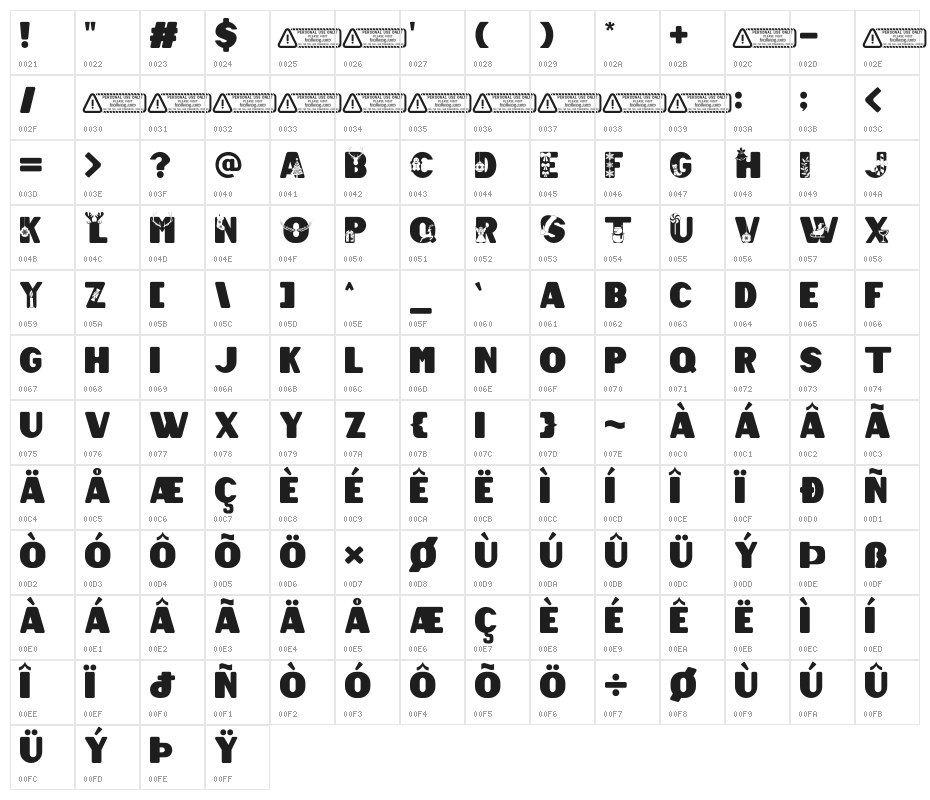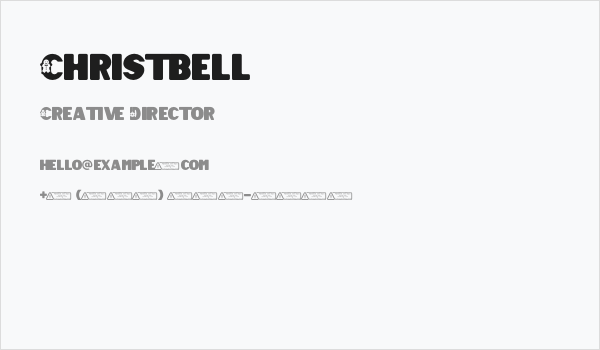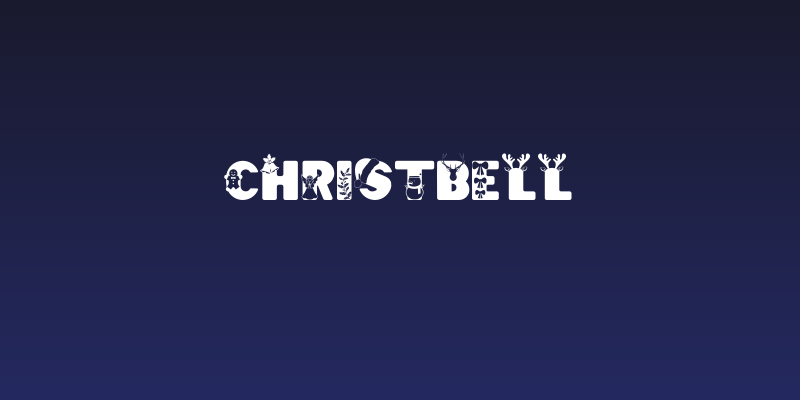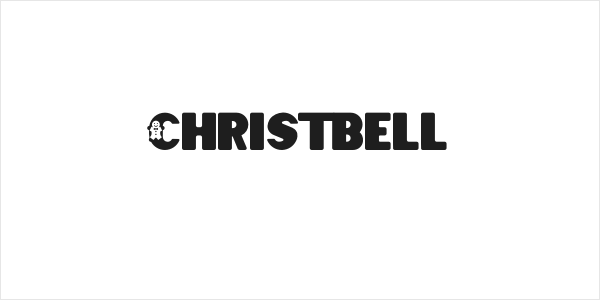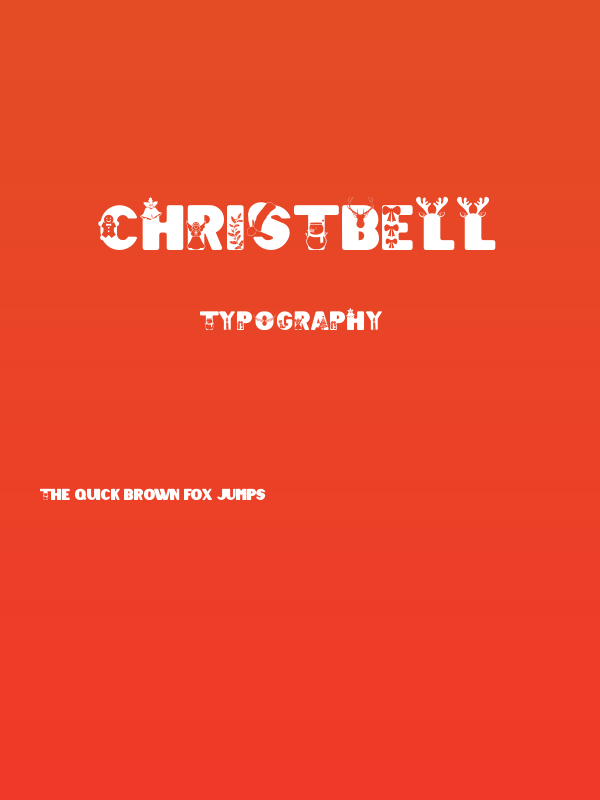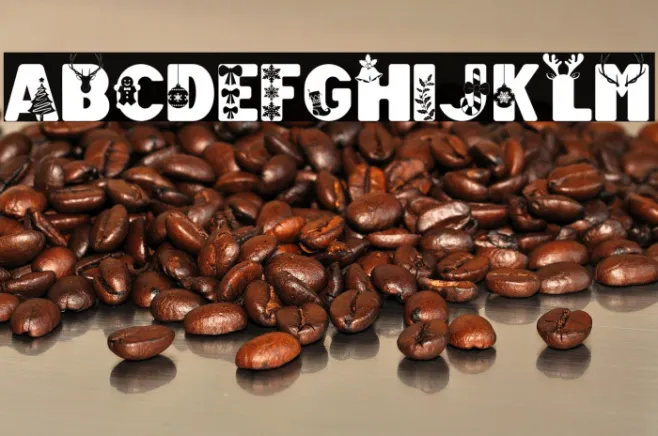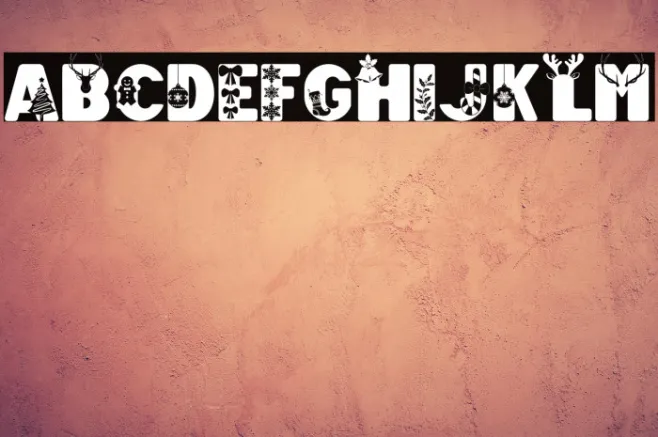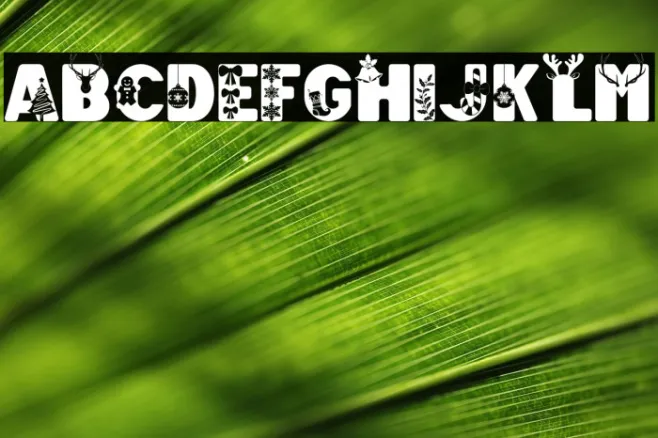
Christbell Font
Christbell Description
This font features a bold, decorative style with intricate holiday-themed elements integrated into each letter. The uppercase letters are adorned with festive motifs such as snowflakes, candy canes, and holly, creating a whimsical and playful appearance. The solid, bold structure of the letters ensures readability while the decorative elements add a unique, seasonal flair. The font is ideal for capturing the spirit of the holidays in a fun and engaging way, making it perfect for festive projects.
| Proposed Projects | Ideal for holiday cards, festive banners, seasonal advertisements, and decorative posters. |